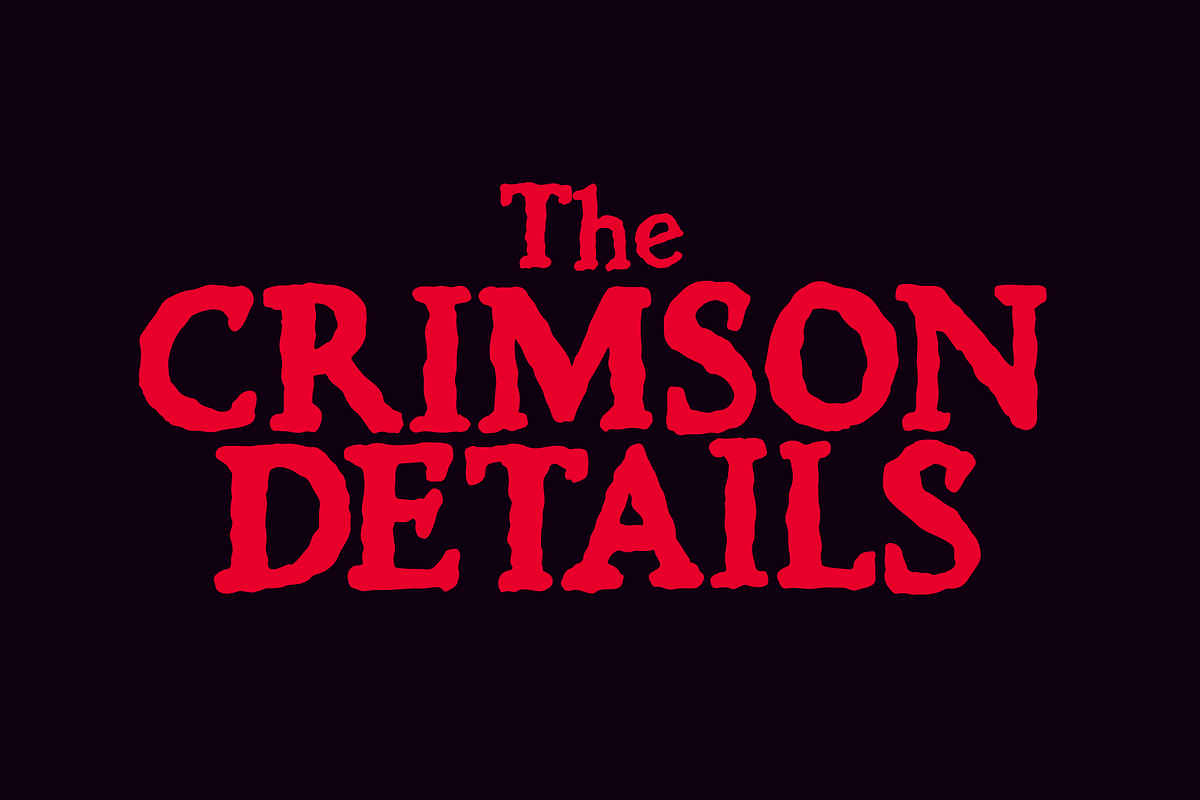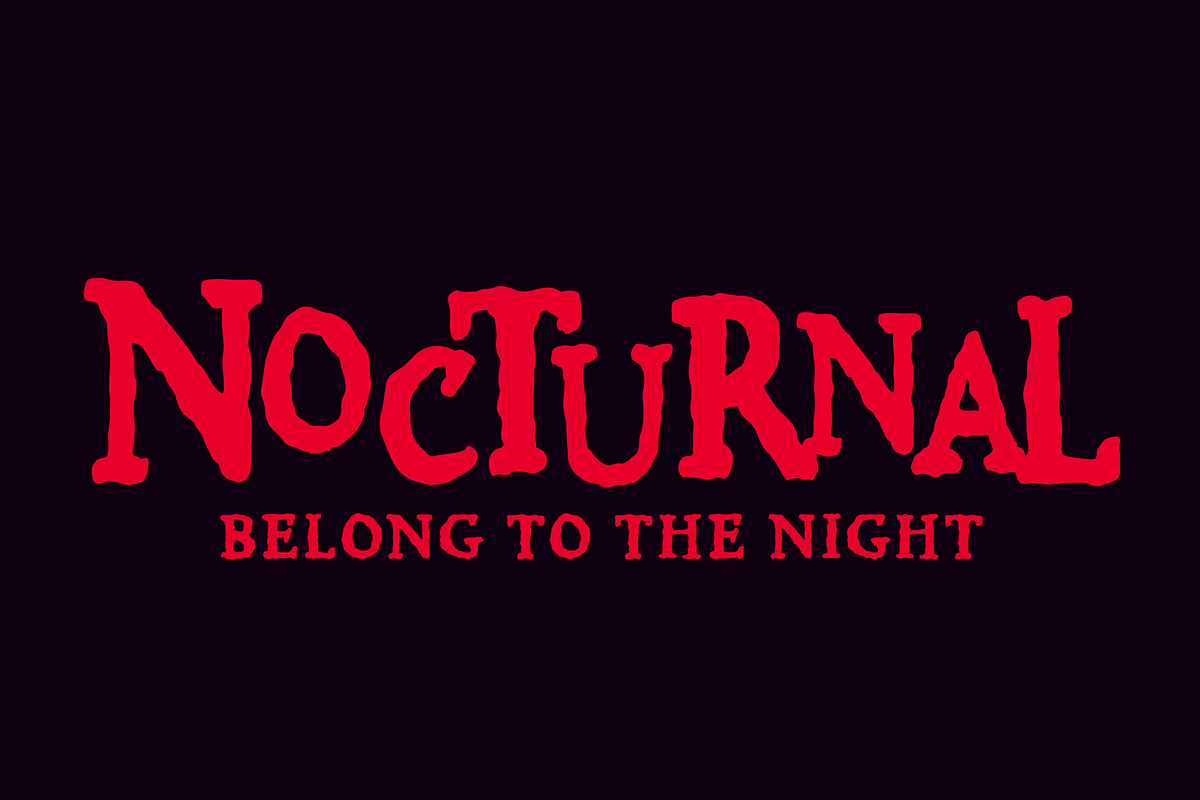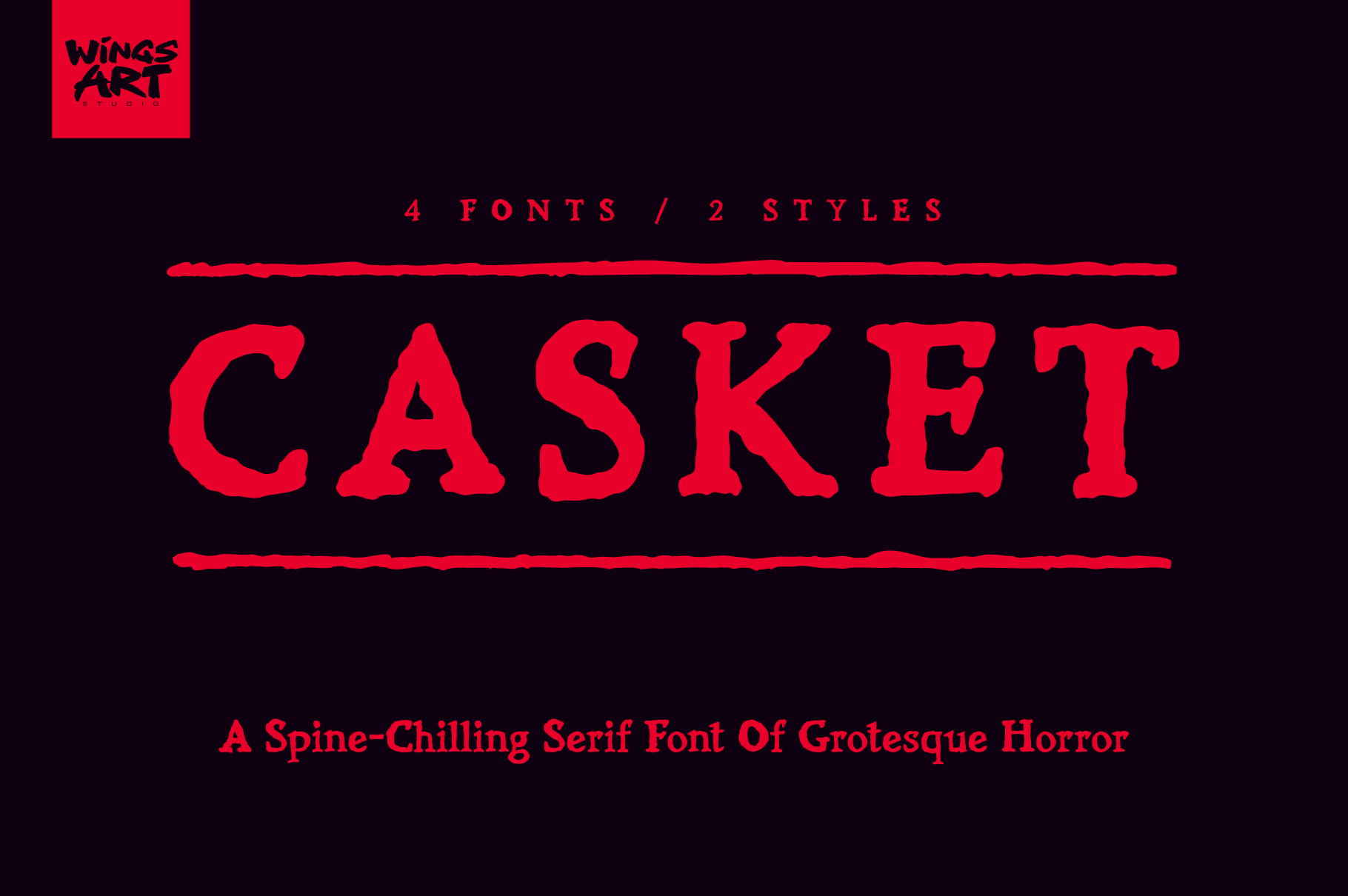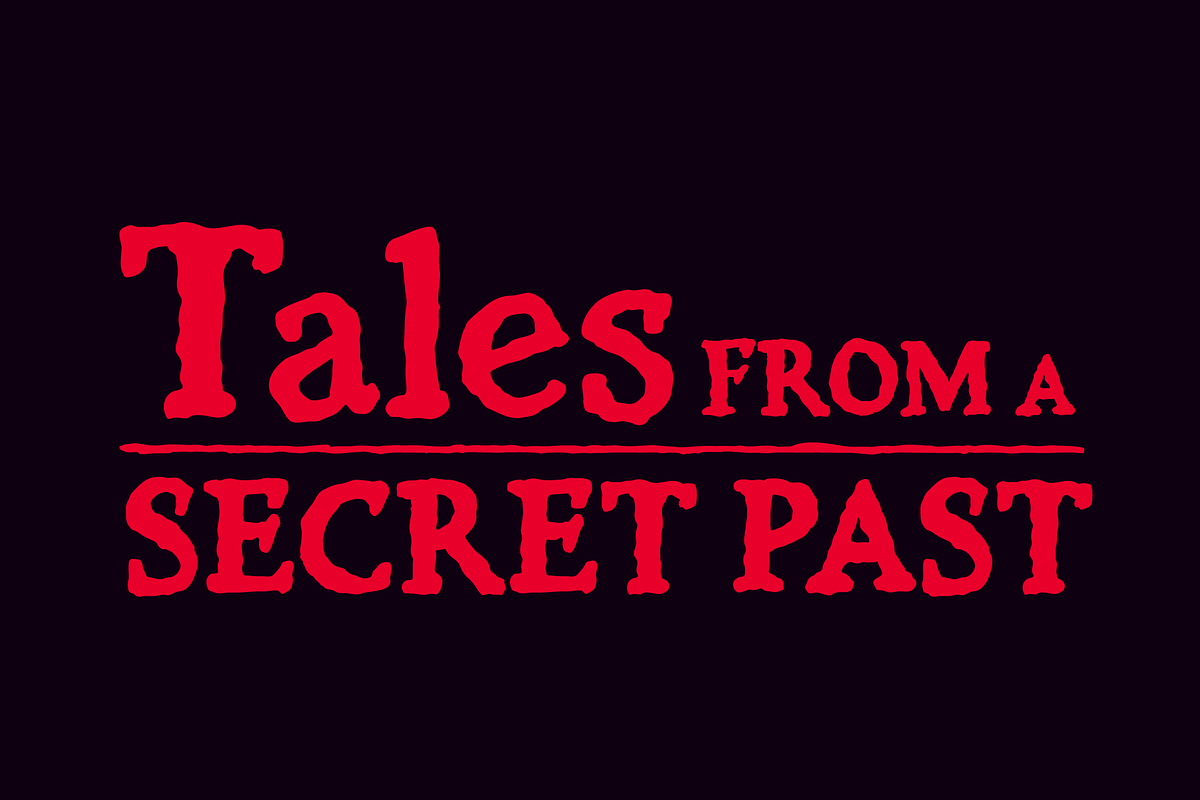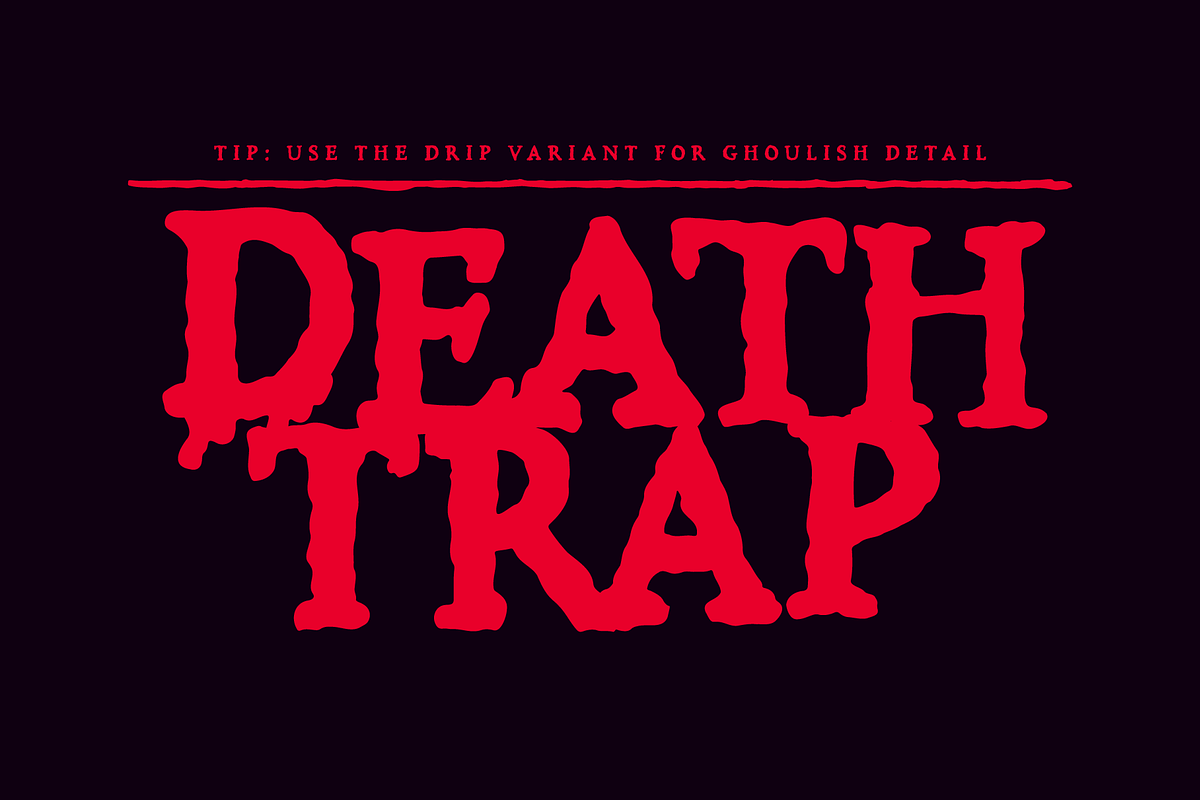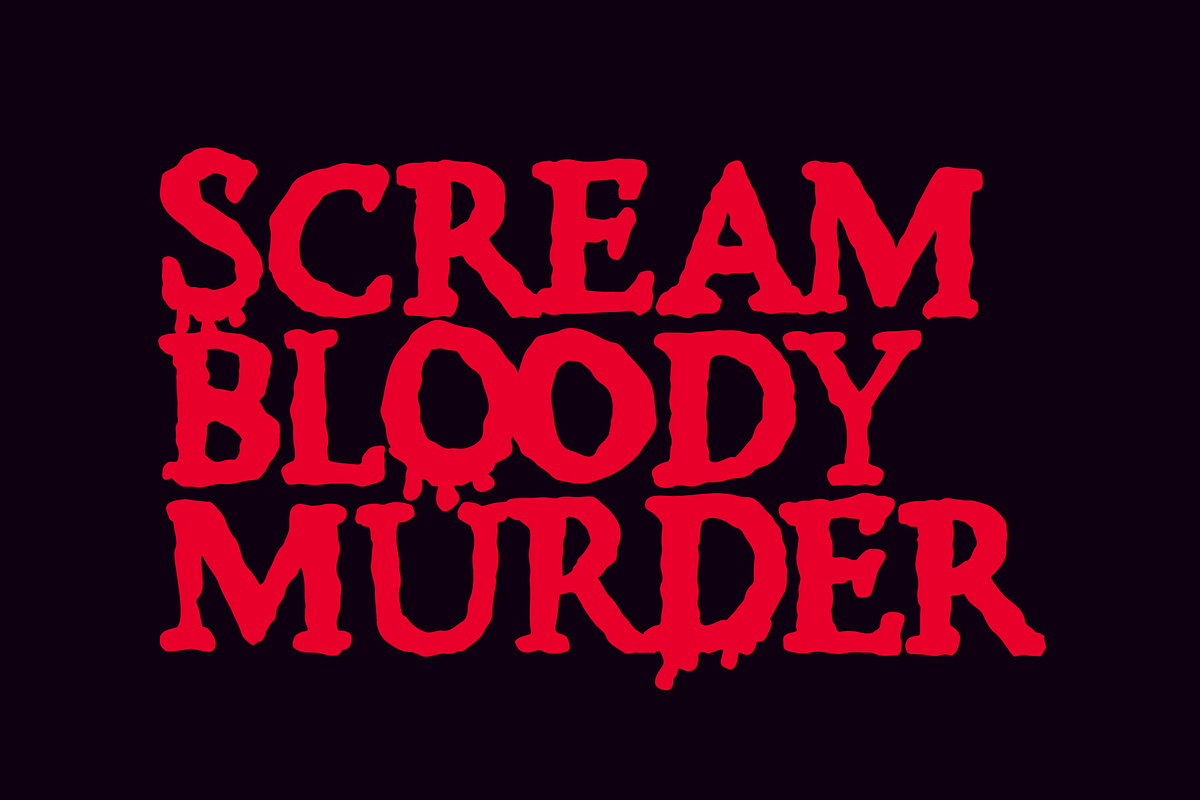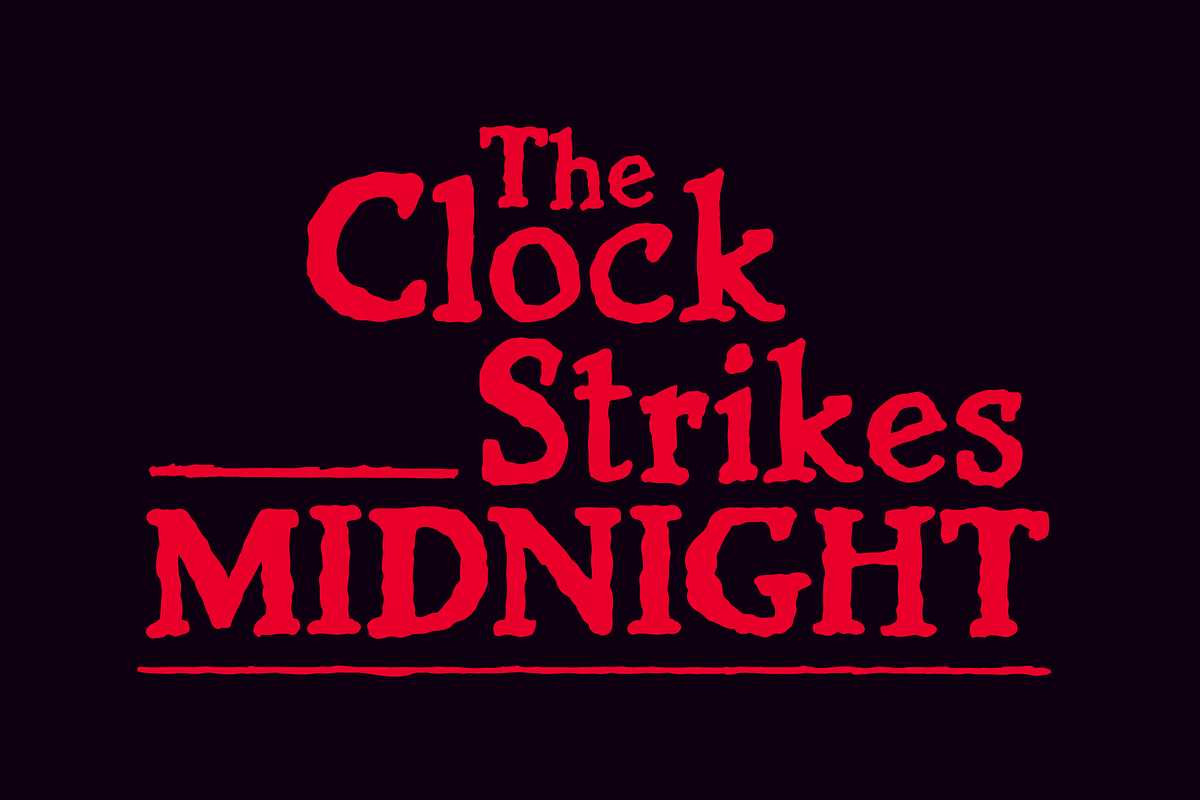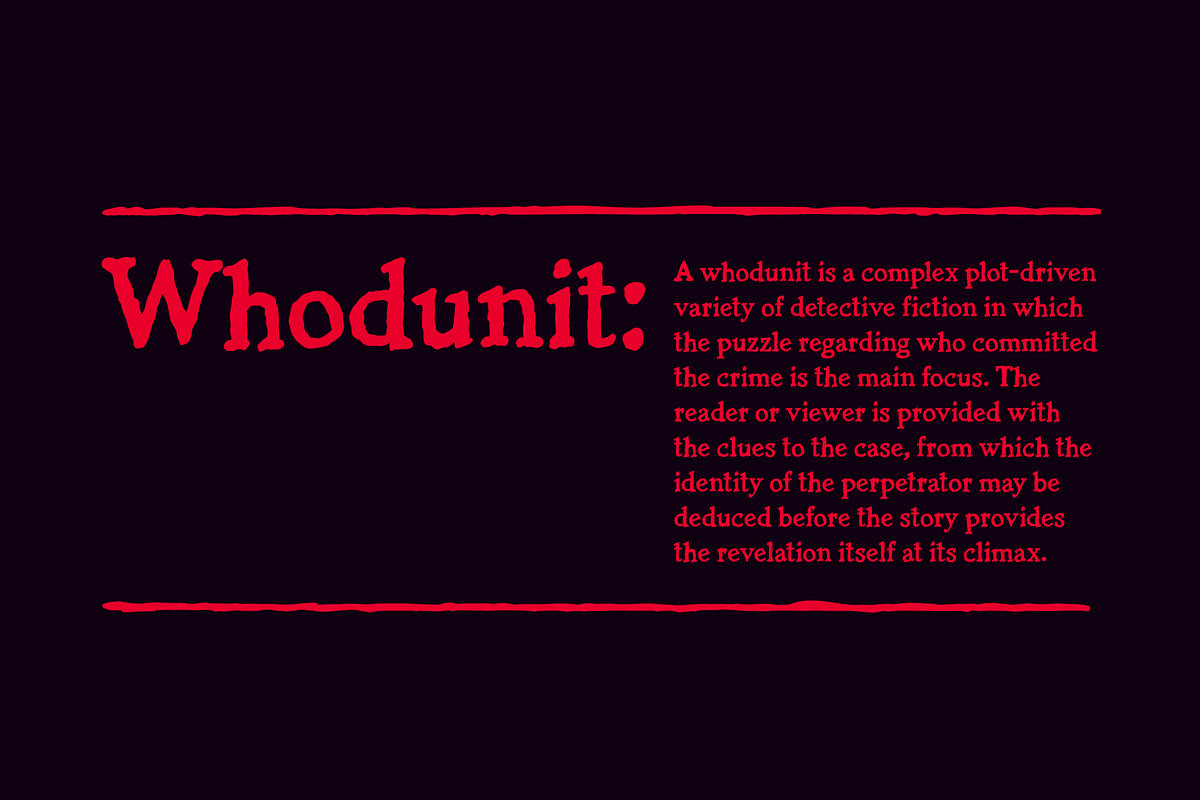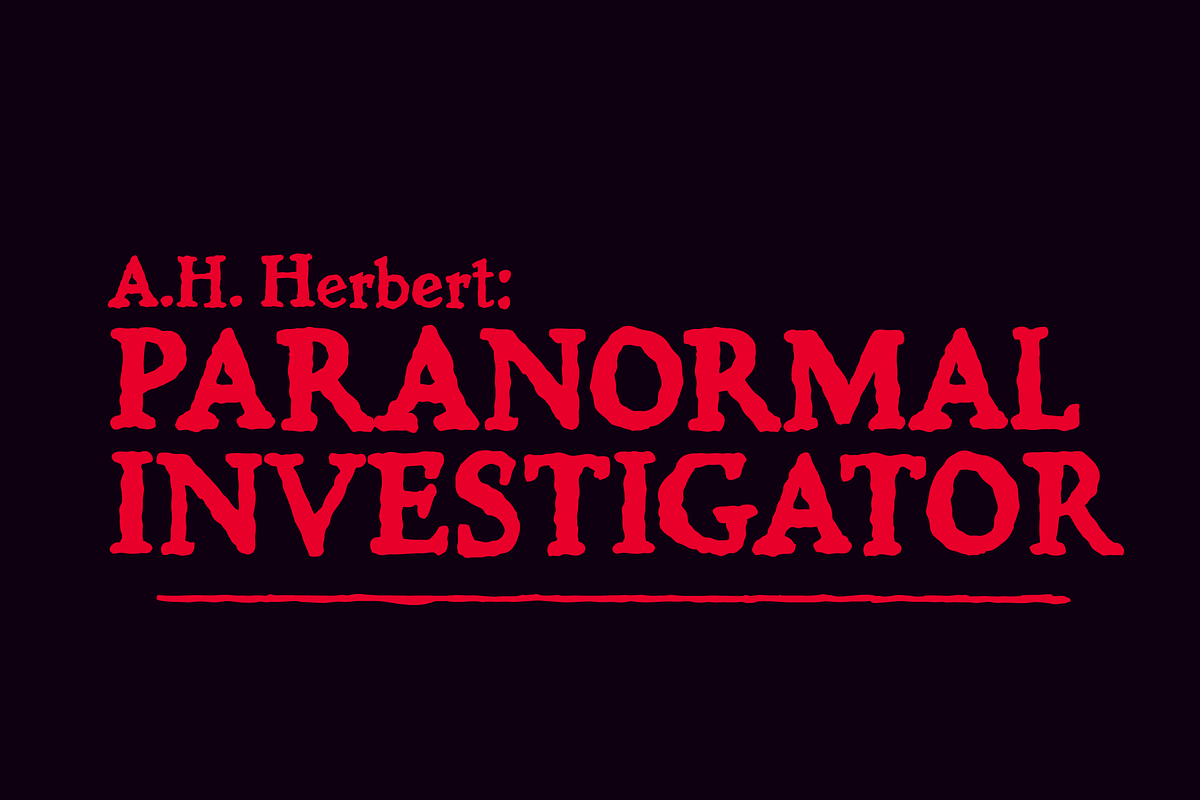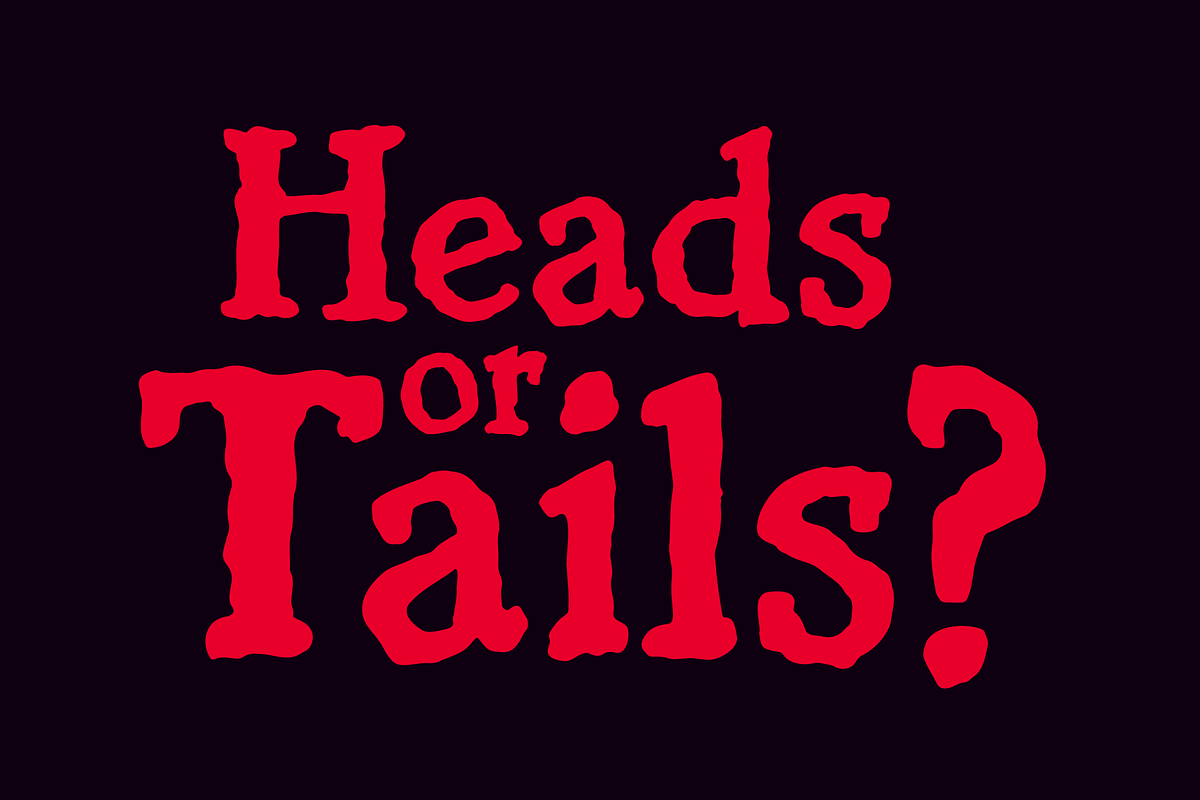
Casket - A Spine-Chilling Serif Font
A Spine-Chilling Serif Font of Grotesque Horror
Casket is a textured serif font that lives somewhere between the worn faces of long-forgotten gravestones, and the typewriters of gothic authors such as Bram Stoker and M.R. James - letters from a murder mystery with an ancient, ghostly tale to tell.
Weighted and designed to work equally well as a display font and formal body text, this is a versatile choice that speaks of a literary past, with an aged textured that lends itself to themes of Horror, Whodunits and Westerns.
The Casket font family includes a complete set of uppercase and lowercase characters, along with numerals, punctuation, symbols and language support. It also comes with a blood-soaked variant (for adding ghoulish details), each featuring a complete set of alternatives so you’ll never have to repeat characters, thus maintaining that all-important analogue look.